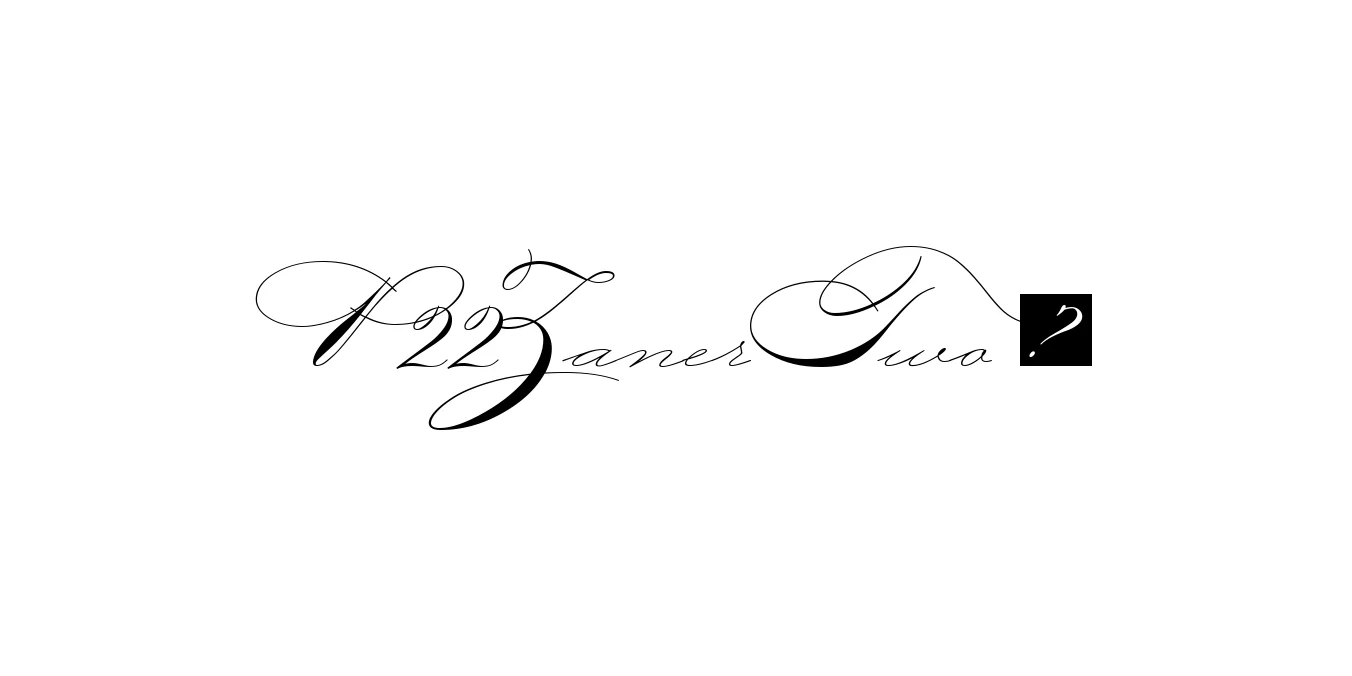
P22ZanerTwo ☞
Designed by Paul Hunt (P22 Type Foundry)
P22 Zaner Two is a masterful recreation of the ornamental penmanship popularized by Charles Paxton Zaner at the turn of the 20th century. This typeface is part of a larger suite of fonts that meticulously digitizes the rhythmic, Spencerian handwriting style that defined the golden age of American calligraphy. It captures the delicate contrast between fine hairlines and robust swells, providing an authentic hand-lettered aesthetic that feels both historical and timeless.
The font is specifically designed to handle the complexities of decorative writing, making it a favorite among typographers who require a high degree of elegance. Unlike standard script fonts, P22 Zaner Two reflects the specific flourishes and architectural strokes found in professional penmanship journals of the 1800s. It serves as a bridge between historical document preservation and modern digital design, offering unparalleled sophistication for projects that demand a refined, classic touch.
P22ZanerTwo ☞ Best Uses
Exquisite for high-end invitations, envelopes, and place cards.
Ideal for diplomas, awards, and historical certificates requiring authority.
Perfect for logos and packaging in the fragrance, wine, or boutique jewelry sectors.
Excellent for decorative headers or drop caps in classical literature or lifestyle magazines.